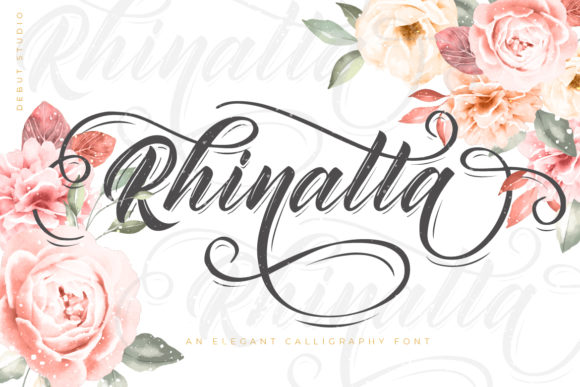
Introducing Rhinatta Font, the enchanting script font that will ignite your creativity and transform your designs into captivating masterpieces. Immerse yourself in the world of Rhinatta, a font family characterized by its genuine cuteness and captivating swashes.
With Rhinatta, you'll have the power to add a touch of whimsy and charm to your projects. Its playful and amiable nature makes it an irresistible choice for crafting logos, branding, invitations, social media posts, and any design that demands a dash of personality.
Unleash the boundless potential of Rhinatta's beautiful alternates, handpicked to elevate your designs to new heights. These exquisite alternatives introduce a symphony of visual intrigue, ensuring that every creation is unique and unforgettable.
Picture your designs adorned with Rhinatta's captivating ligatures, seamlessly connecting letters to form an enchanting dance of characters. Prepare to be mesmerized as the ligatures add a touch of elegance and sophistication, turning your words into works of art.
Embrace the versatility of Rhinatta and witness how effortlessly it adapts to a myriad of design styles. Whether you seek a whimsical touch for your invitations or a refined elegance for your branding, Rhinatta will rise to the occasion, exceeding your expectations.
Discover the endless possibilities that await you with Rhinatta Font. Its charm, versatility, and captivating features will ignite your creativity and inspire you to create designs that resonate with your audience. Take the plunge and embark on a design journey like never before, all powered by the magic of Rhinatta.